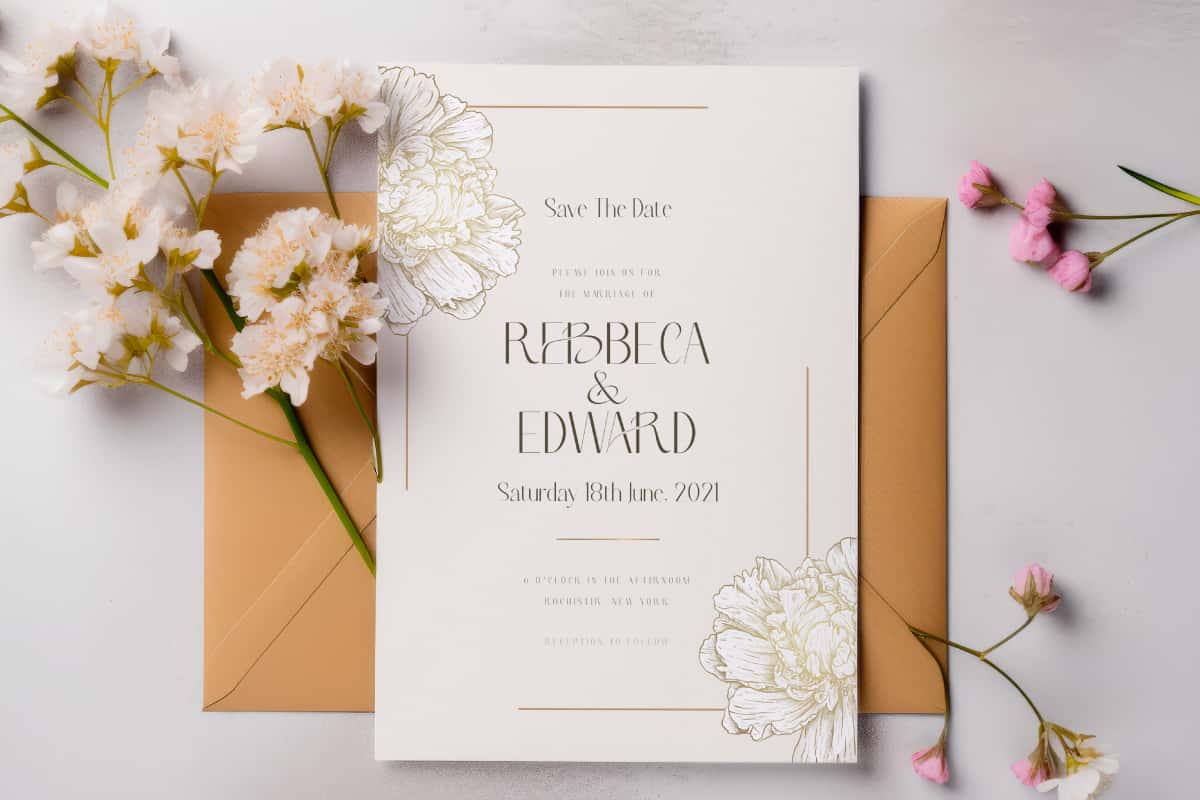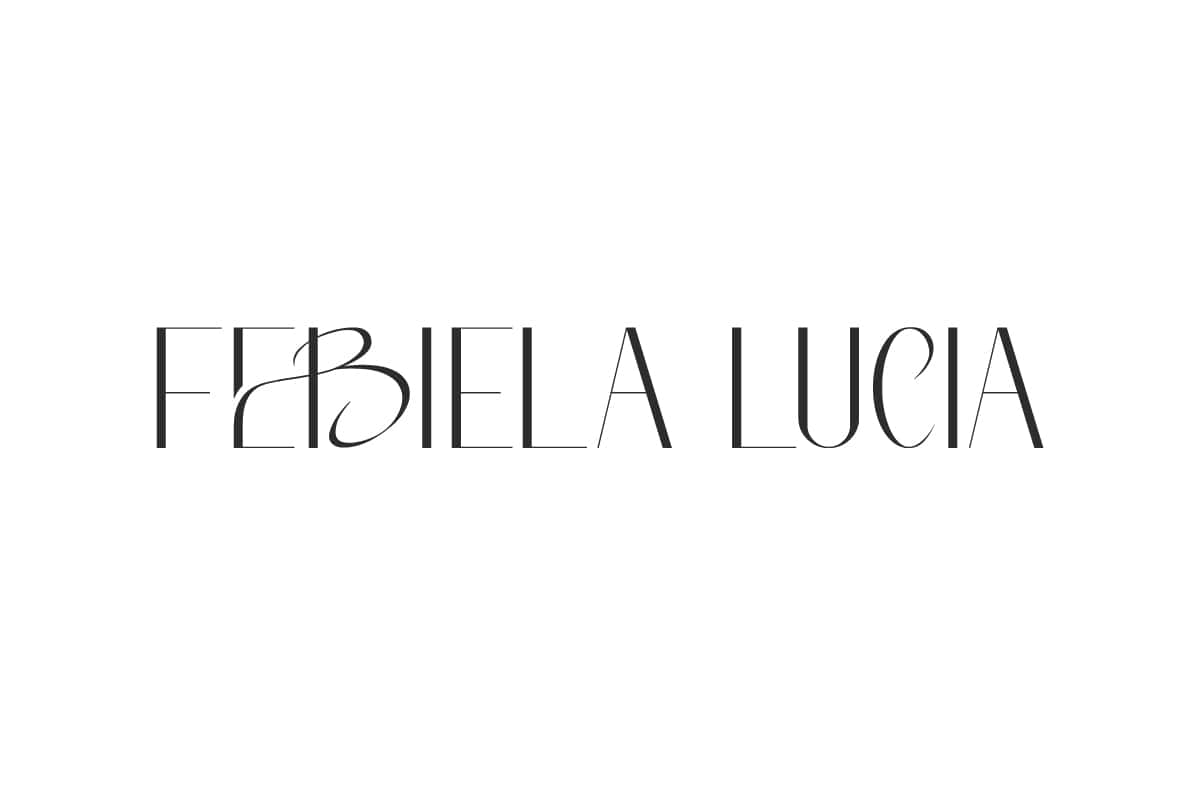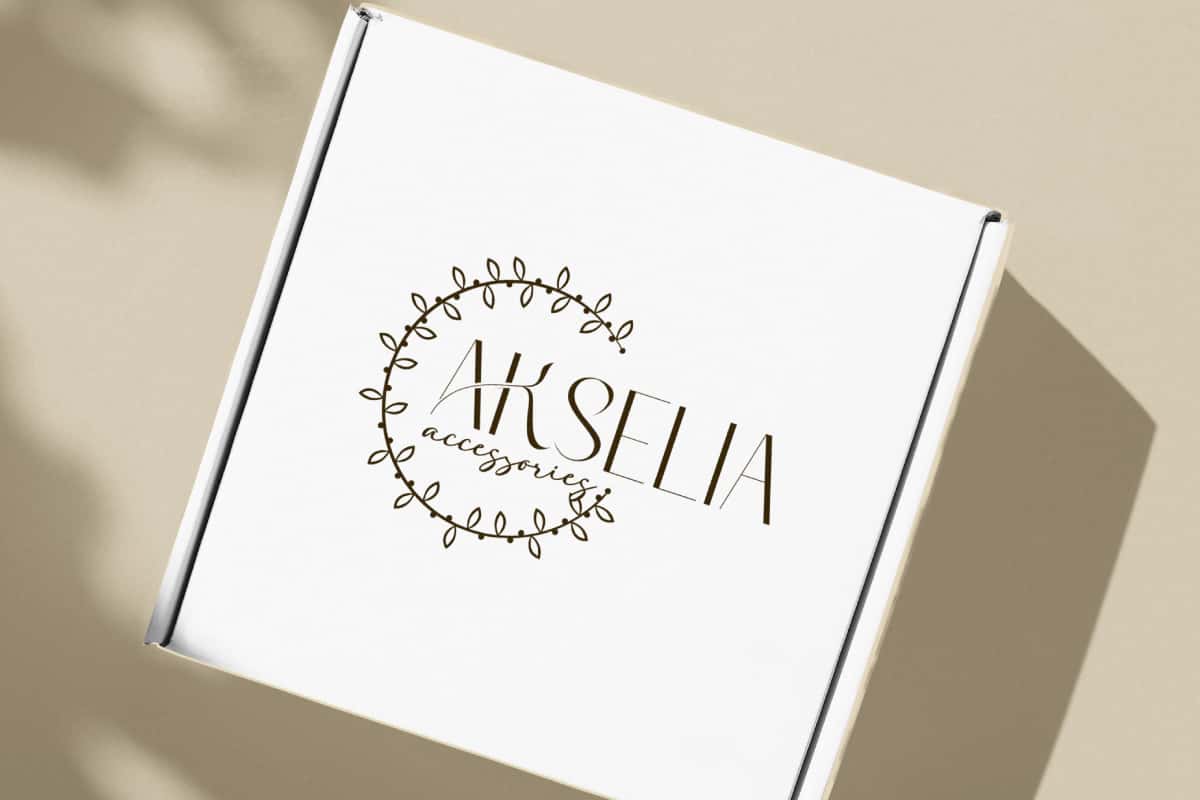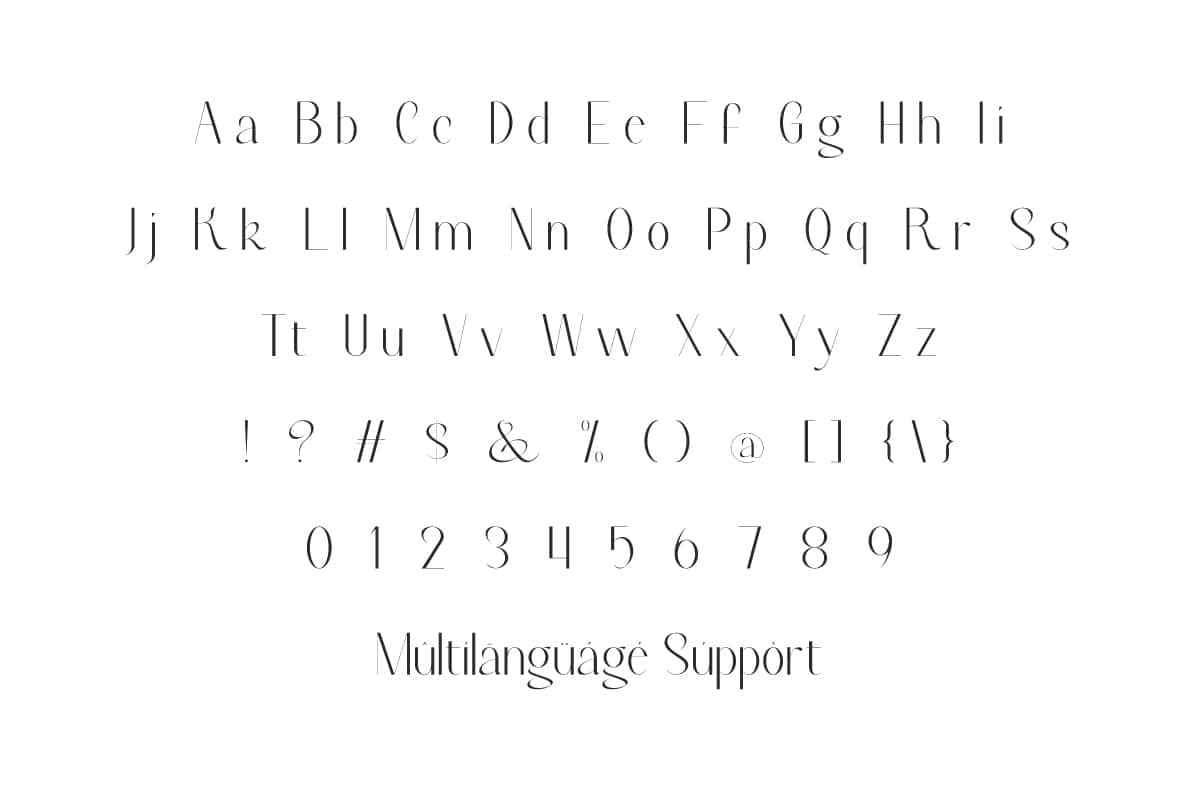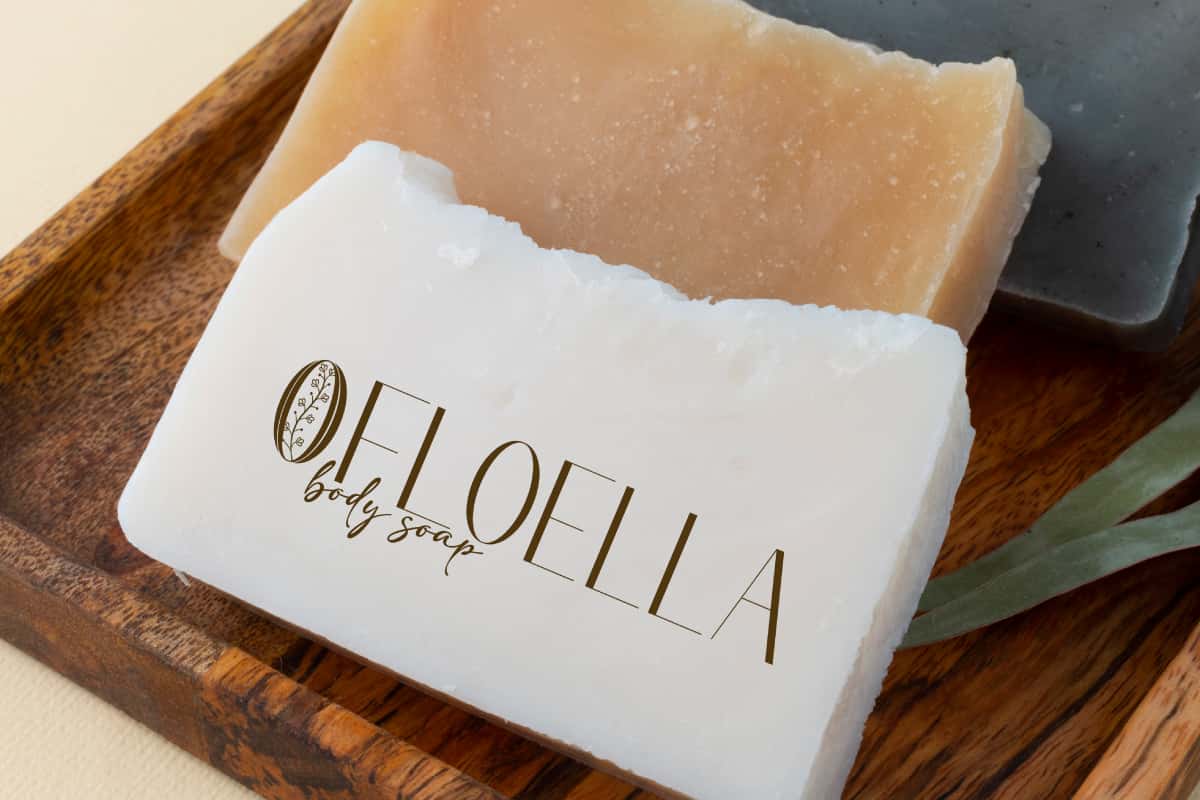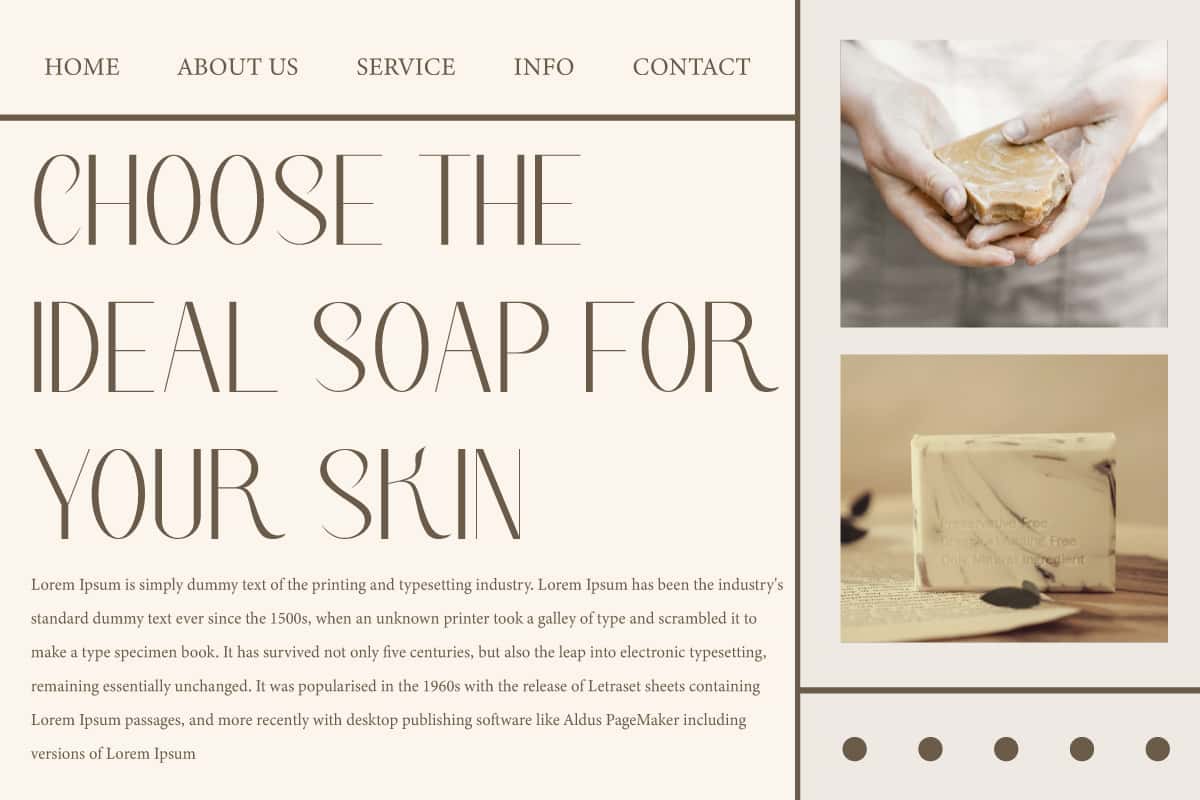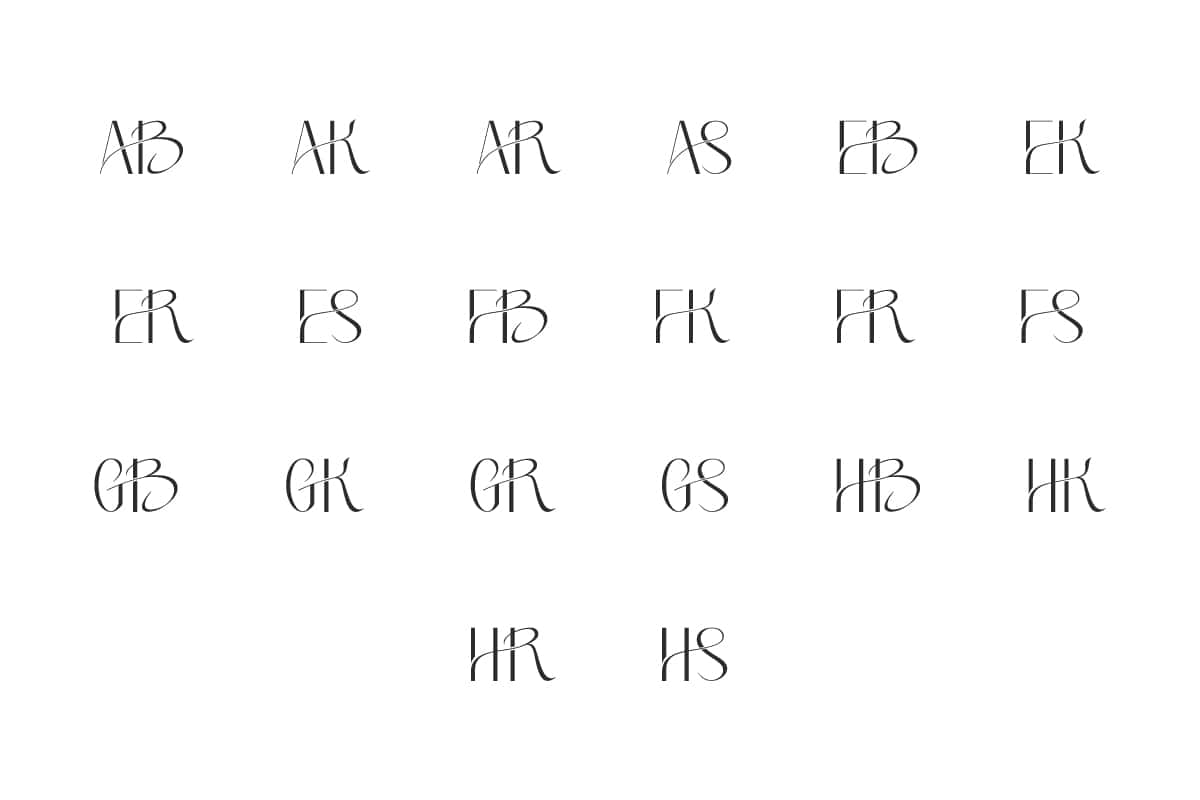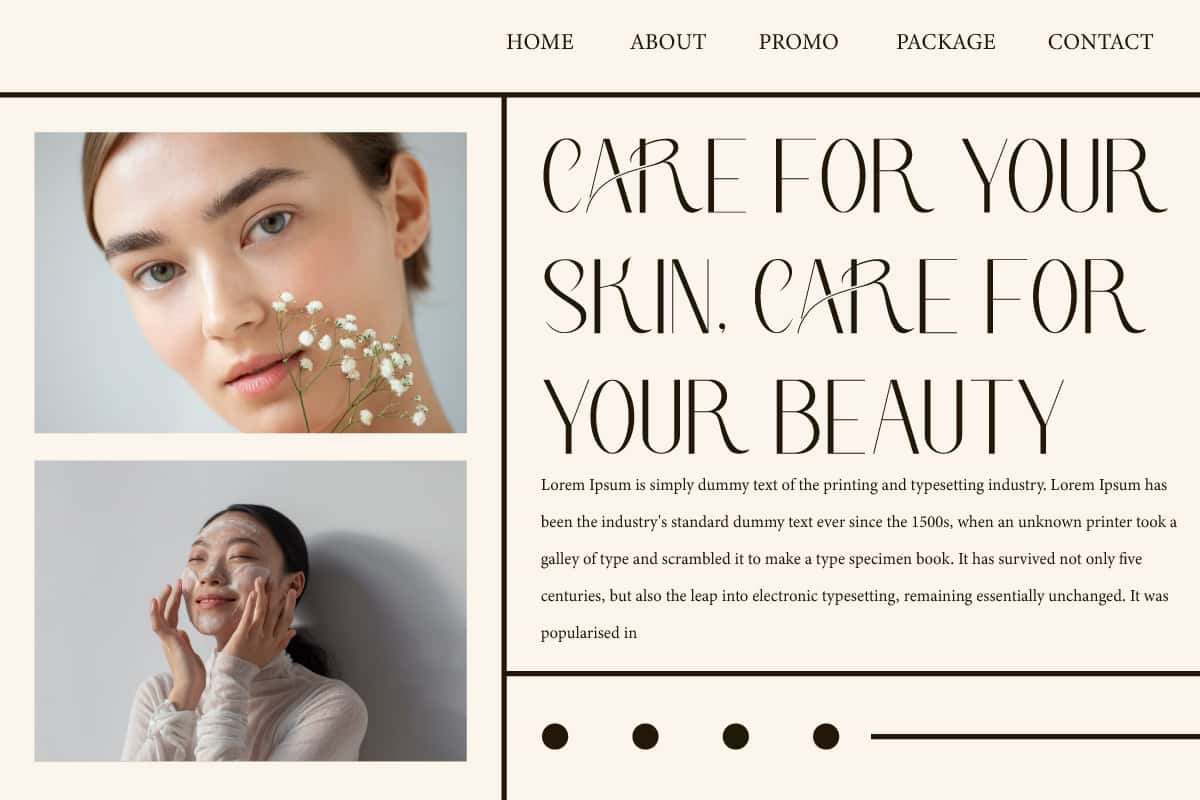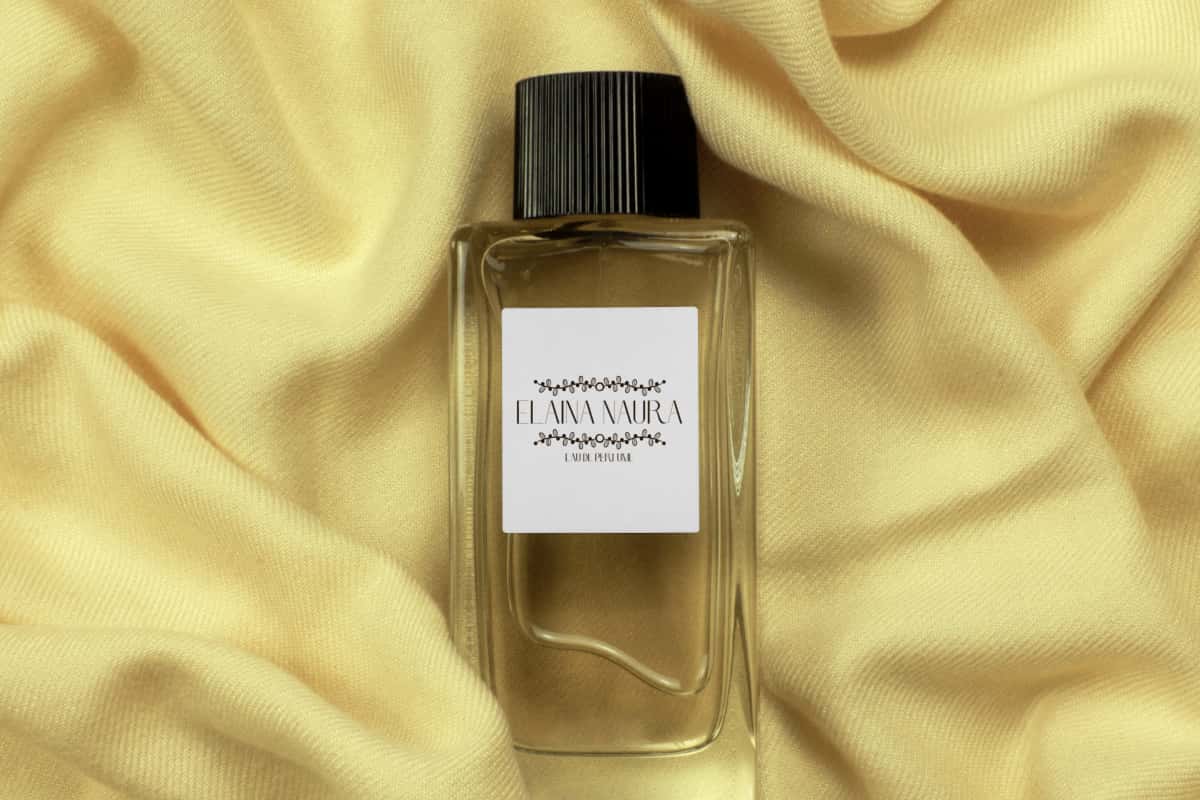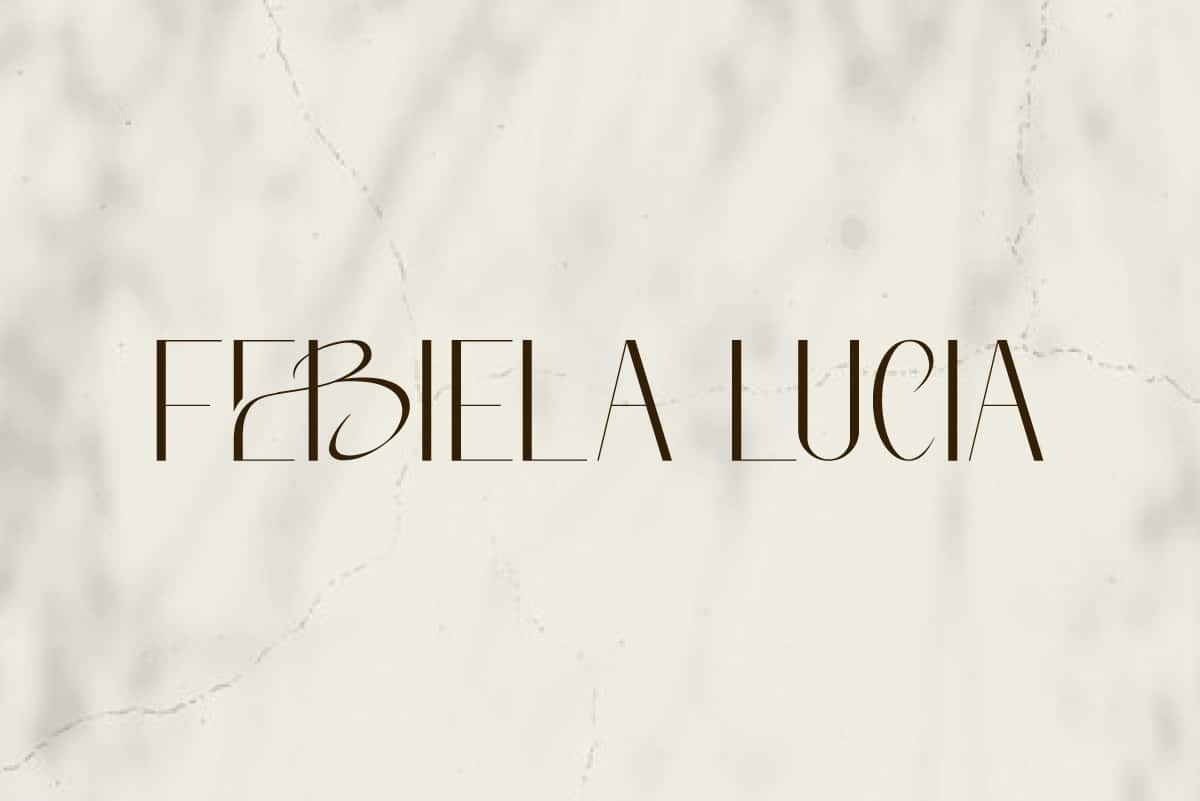
Febiela Lucia Font is a stylish sans serif font with smoothly connected letters for a polished, modern look. Making it looks so rich yet simple!
Febiela Lucia Font is an elegant sans-serif font with smooth, connected letters ligature for a polished look. Perfect for banners, blogs, covers, custom bag, invitation, label, logos, menu, mockup, packaging, quotes, stationery, template, title, watermarks, website, etc.
Febiela Lucia Font includes full set of Uppercase and Lowercase Basic Characters, Number, Punctuation, Symbol, and Ligature. Inspired by the thin and thick line style but made a little subtle with a more rich looks, perfect for accessories and gift, authors, beauty clinic, boutique, cafes, cosmetic, florist, graphic design, handicraft, home furniture, photography, restaurant, spa salon, and more.